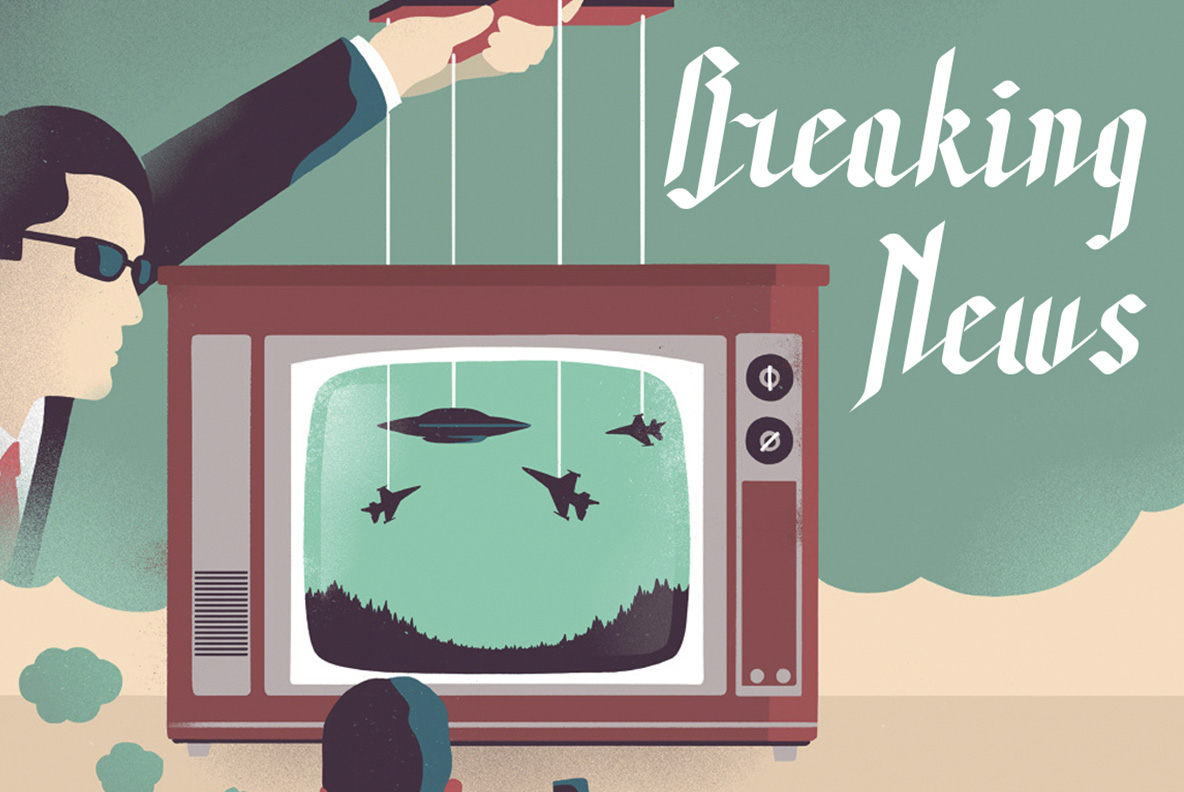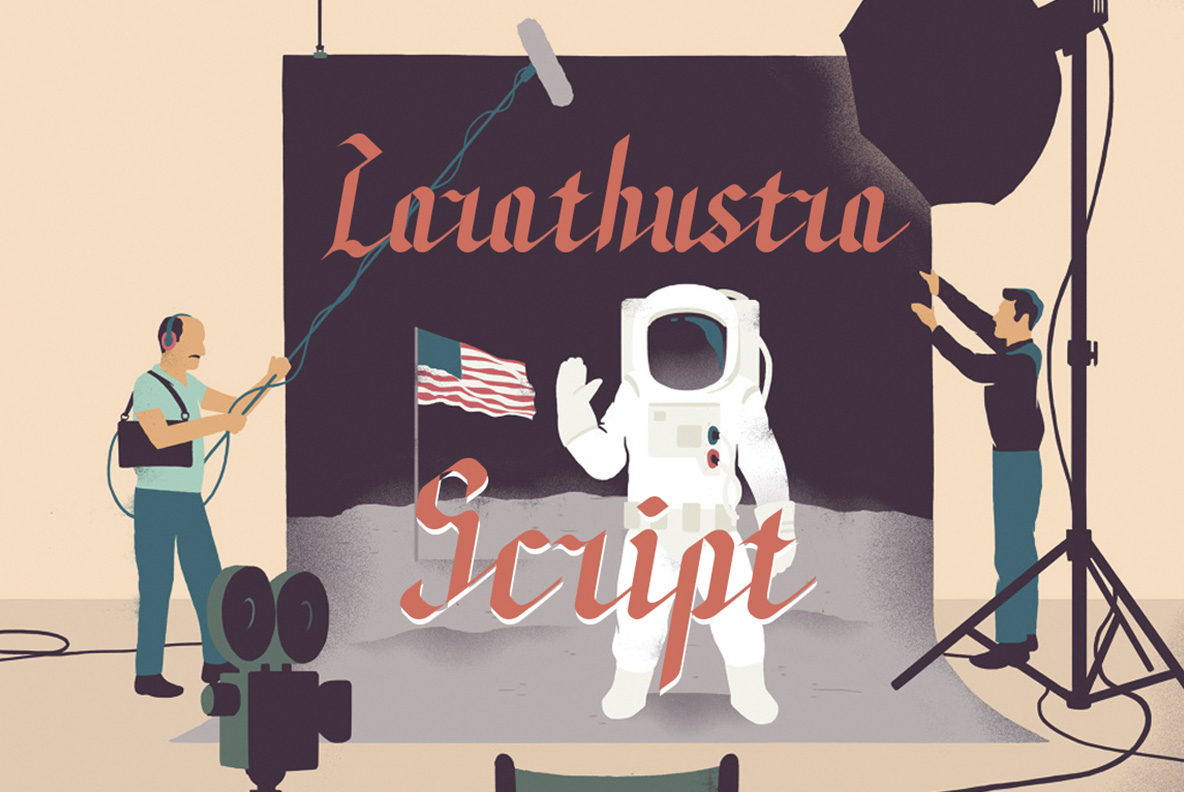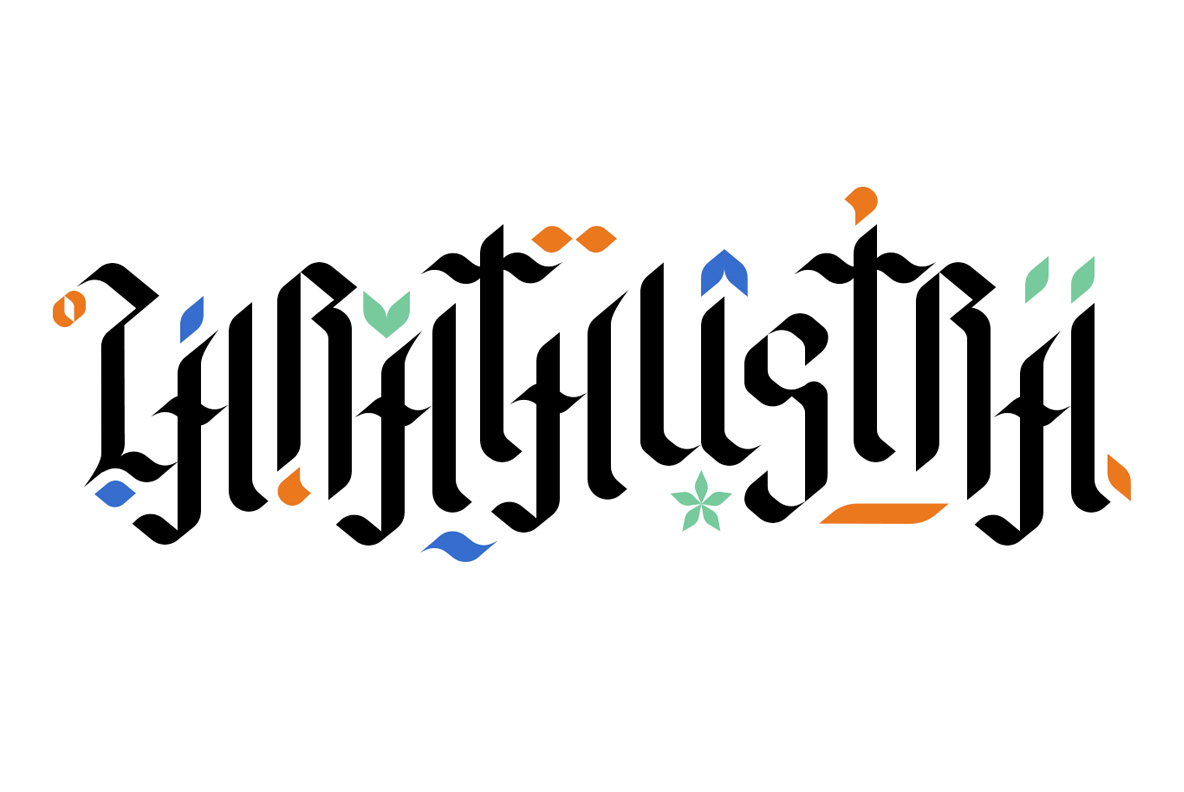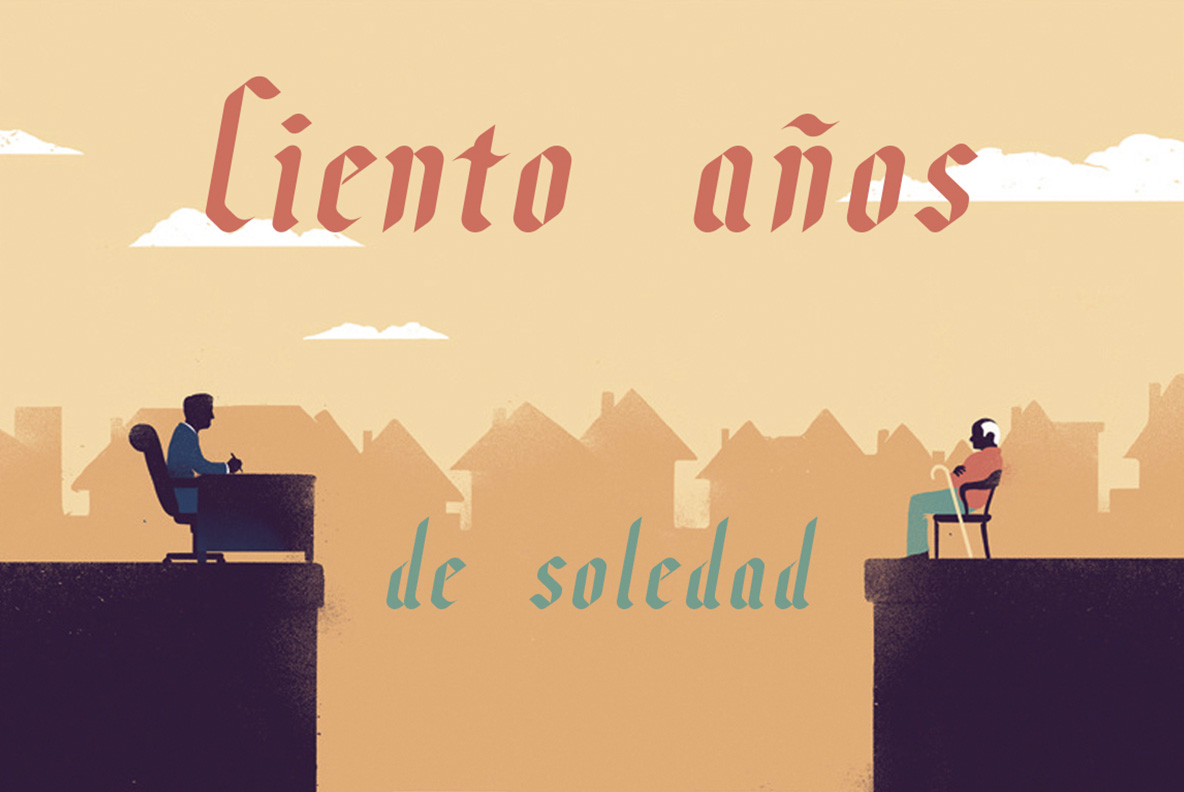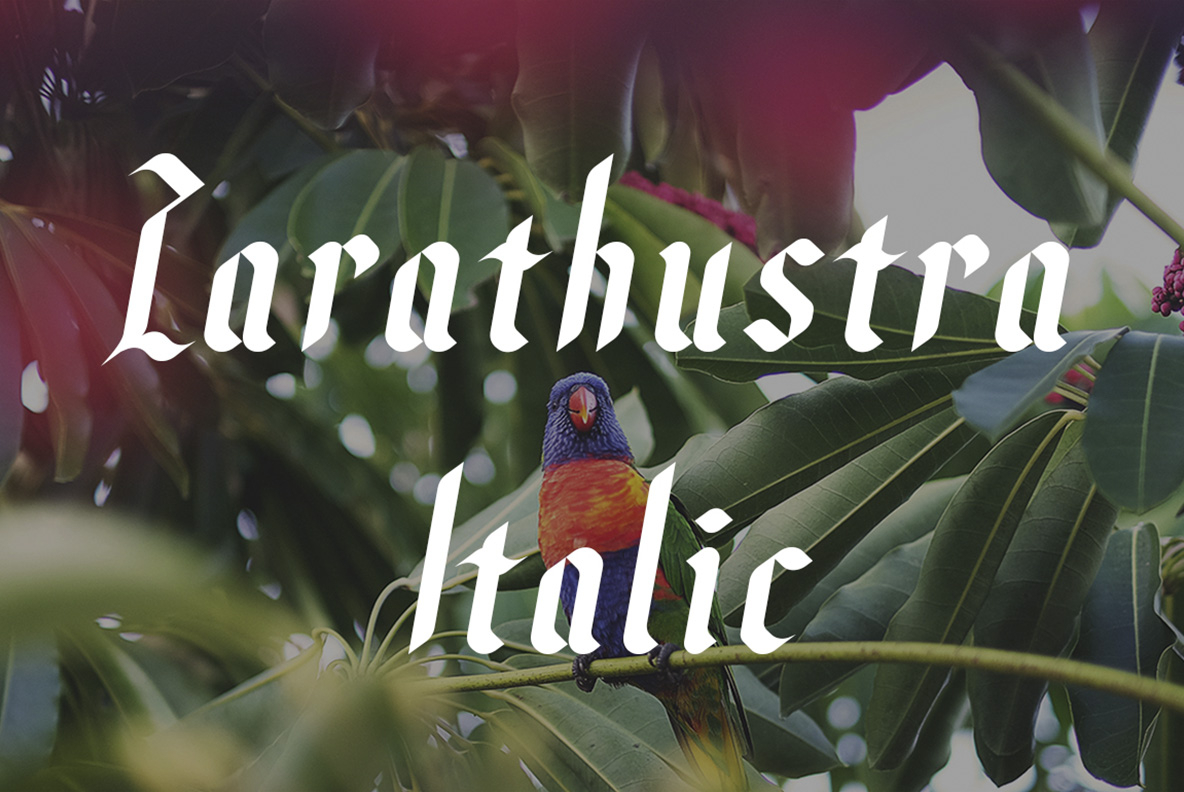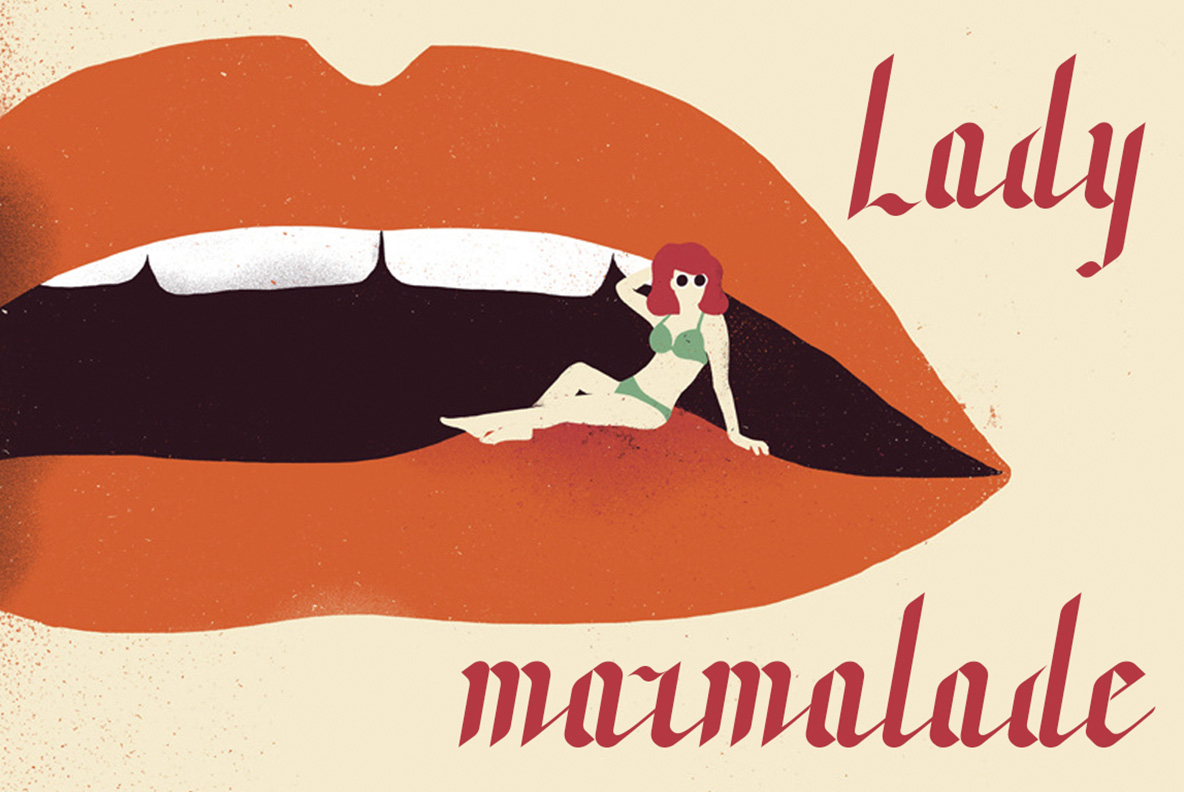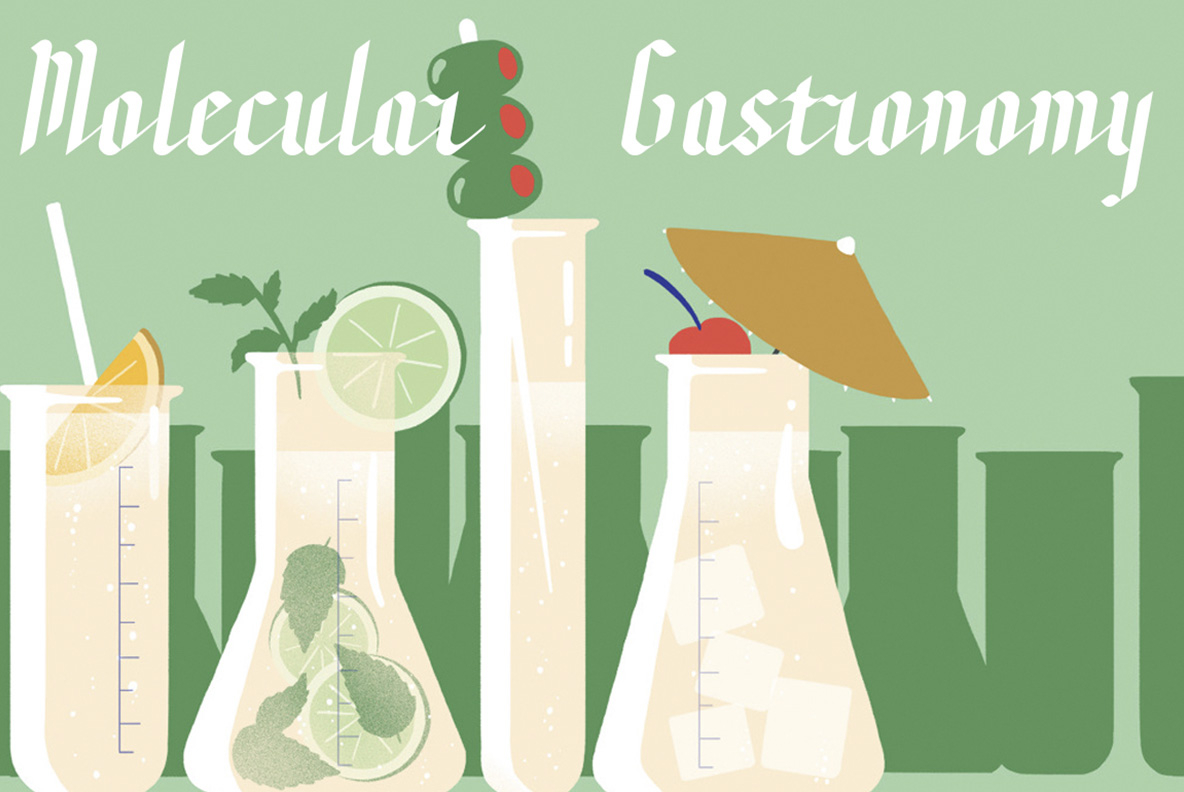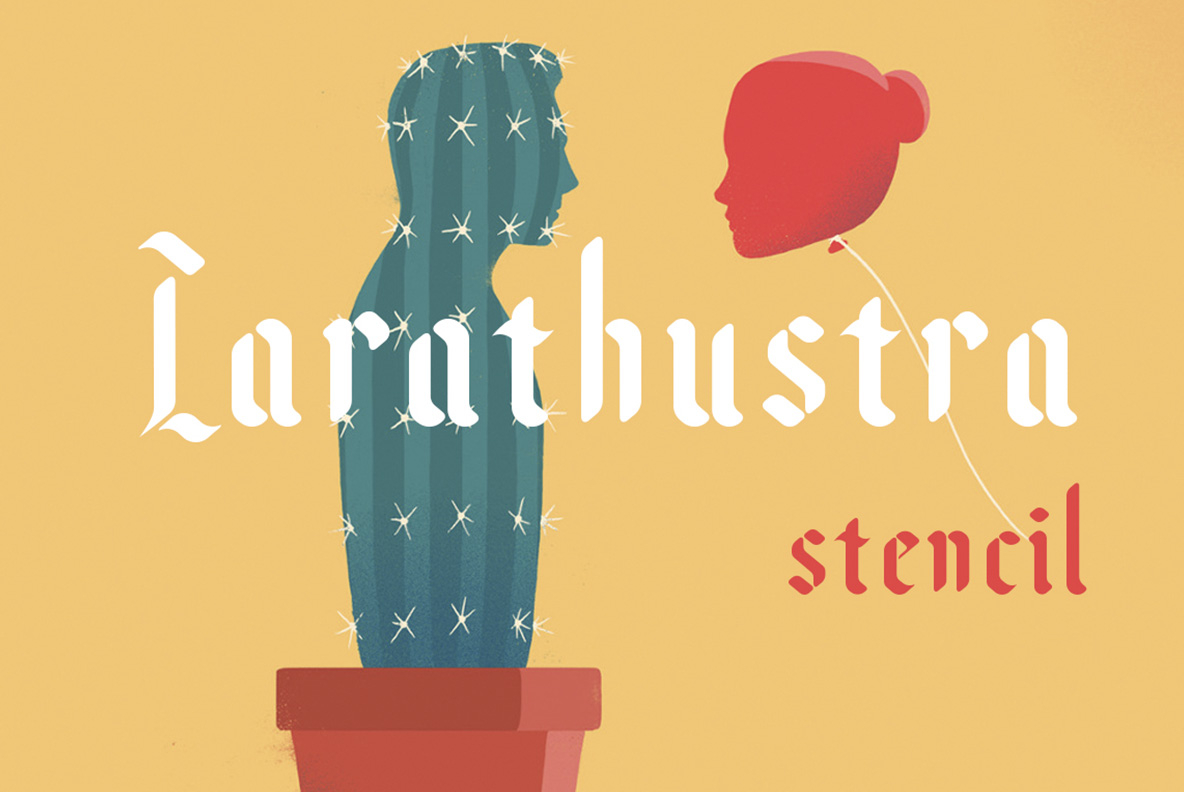
Zarathustra Family Font
About Zarathustra Family Font
Zarathustra is a beautiful font family, perfect for giving your wrok a branded and unique appeal. This blackletter font takes classic typographic concept and turns it into something completely modern and fresh, coming with several different styles so you can create completely stellar designs.